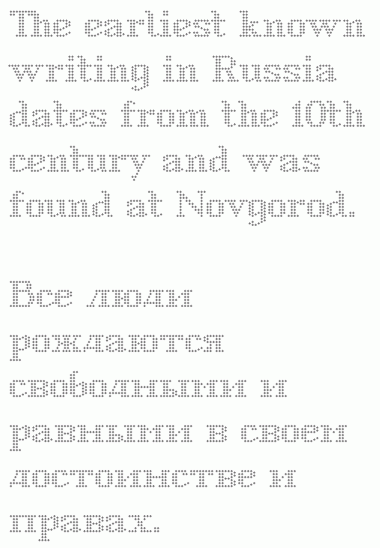
pretty nice!
Klasse Schrift ... great typeface. I love the lowercase very much.
Done. And here's your lovely character set image from your blog so everyone can enjoy the beauty.
Soooooooo nice! :)
Isn't it wonderful how suggestible FontStruct can be made to behave. Love it.
Super ultra sweet. :-)
Großartig!
Sehr schön.
How about extending the family? Italics maybe?
@Sebastianberns: Gute Idee!
Bold?
@sebastianberns I like both ideas, especially the italics. Whenever I find time currently I try to adjust the kerning at the moment but as soon as I am finished with that I think I will start working on an italic style.
I have edited the font a lot lately, cleaned it up, added/changed some characters and most of all tried to enhance legibility / kerning so I can get started with extending it to a family. Here is some sample text with the base font: